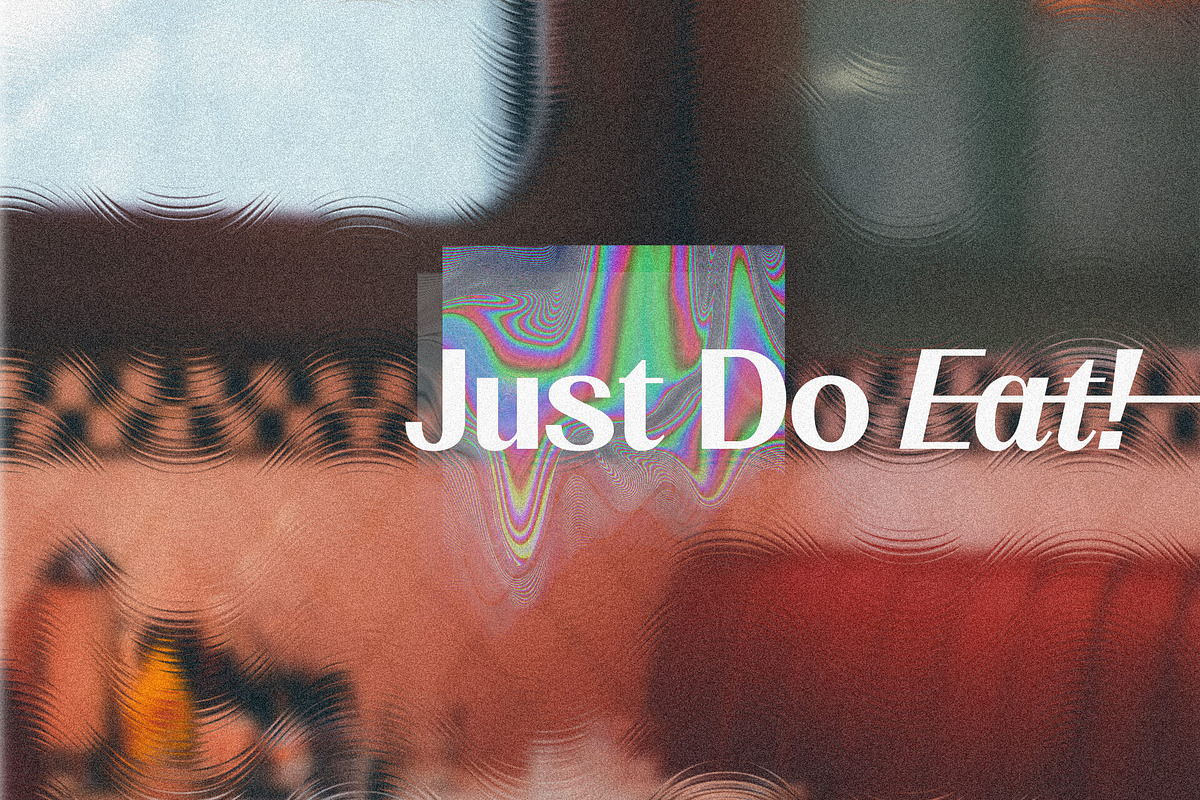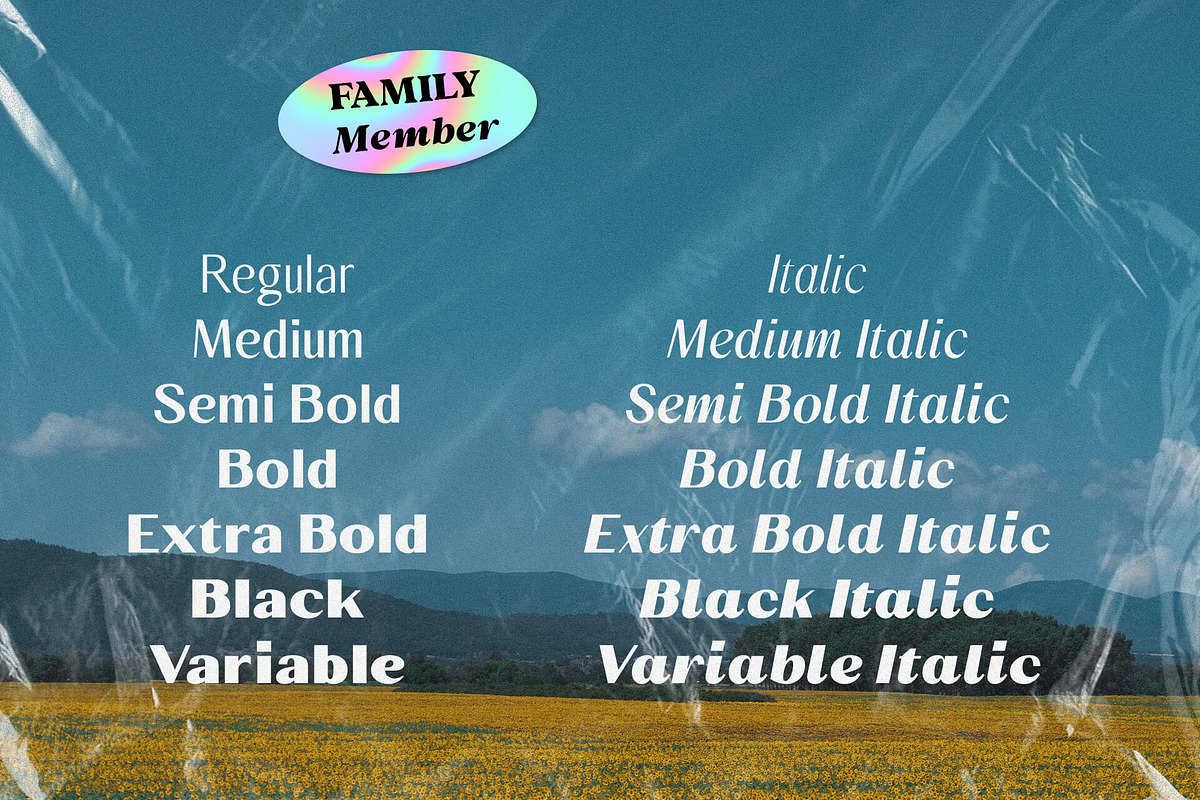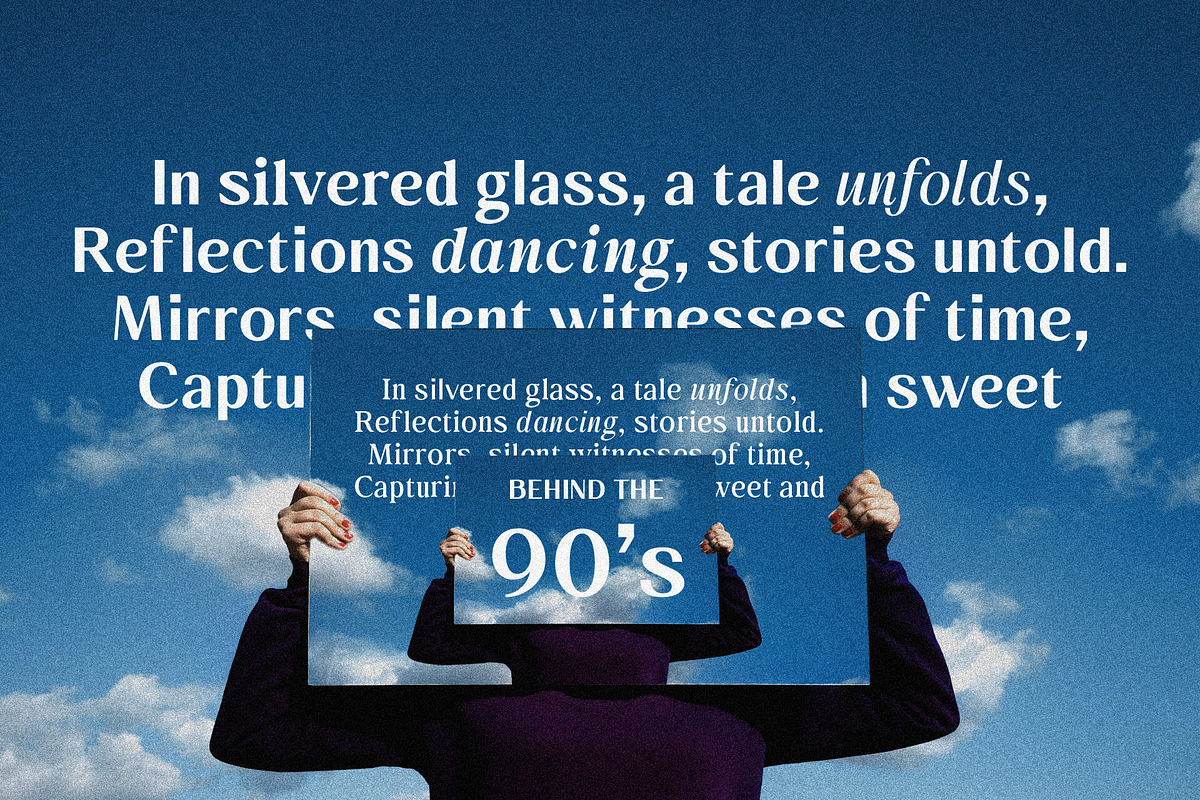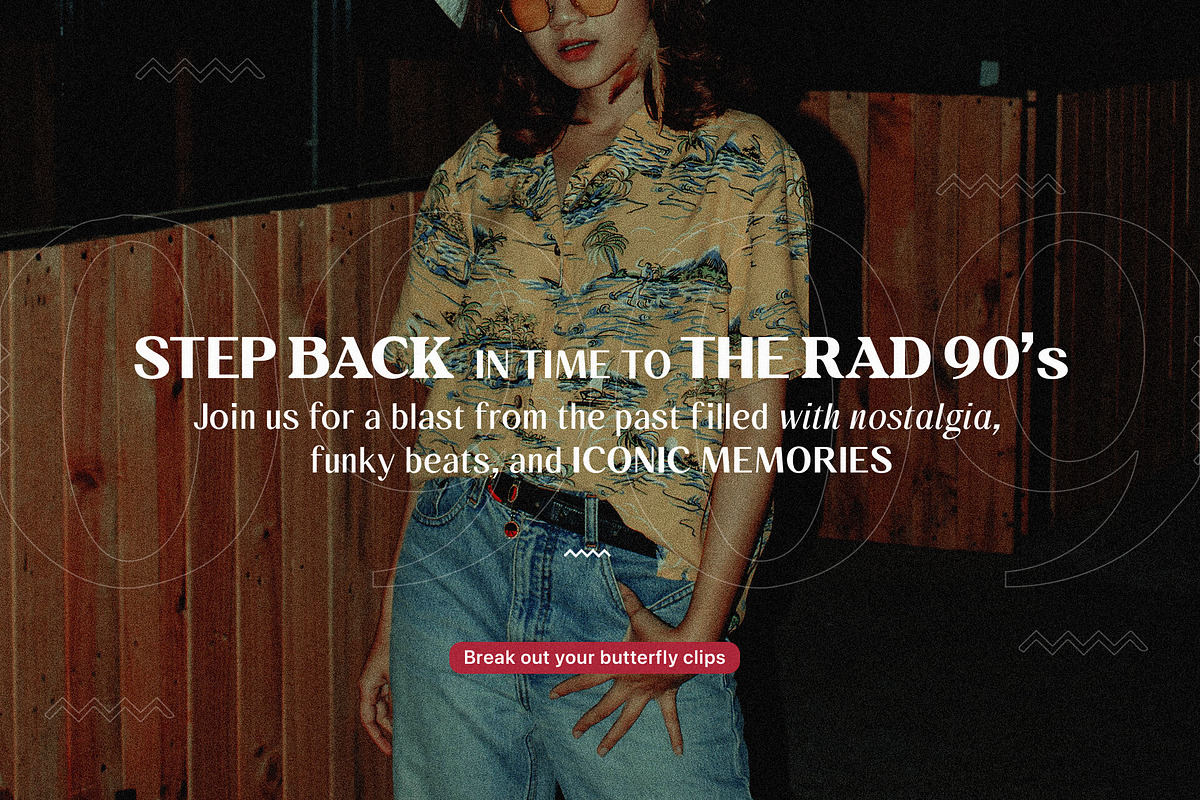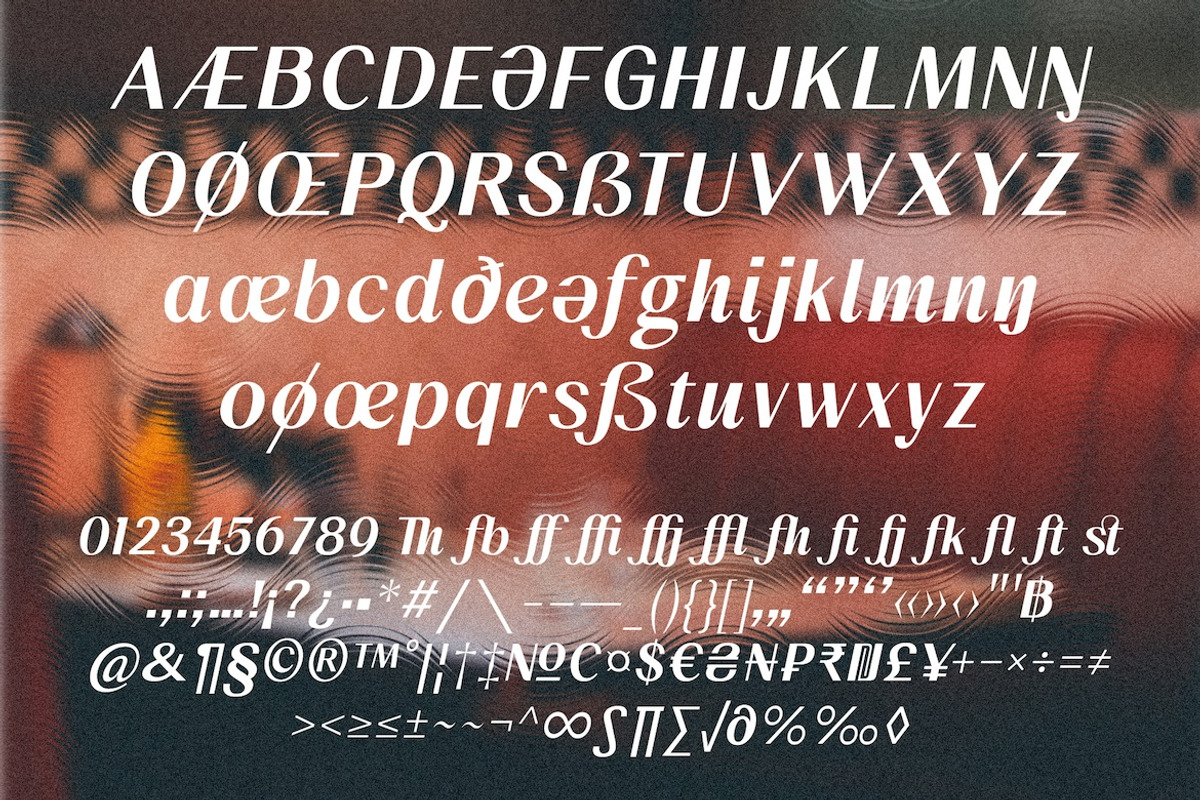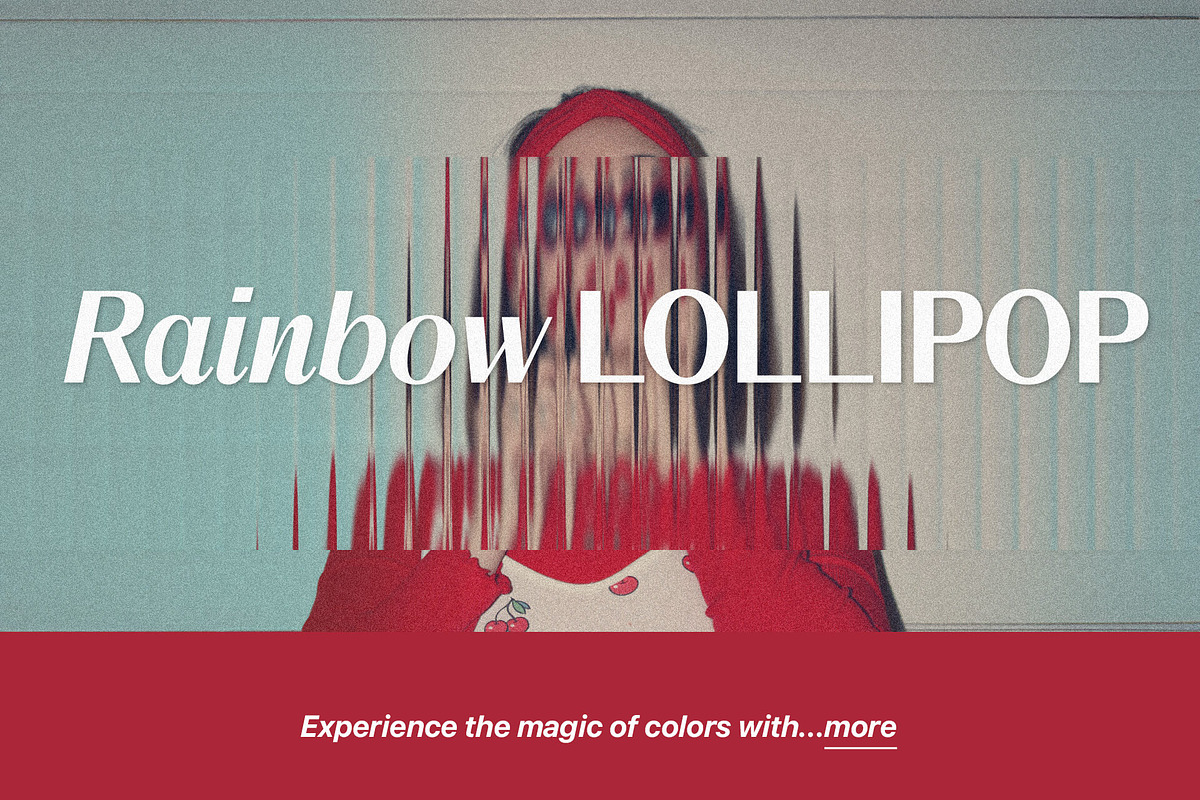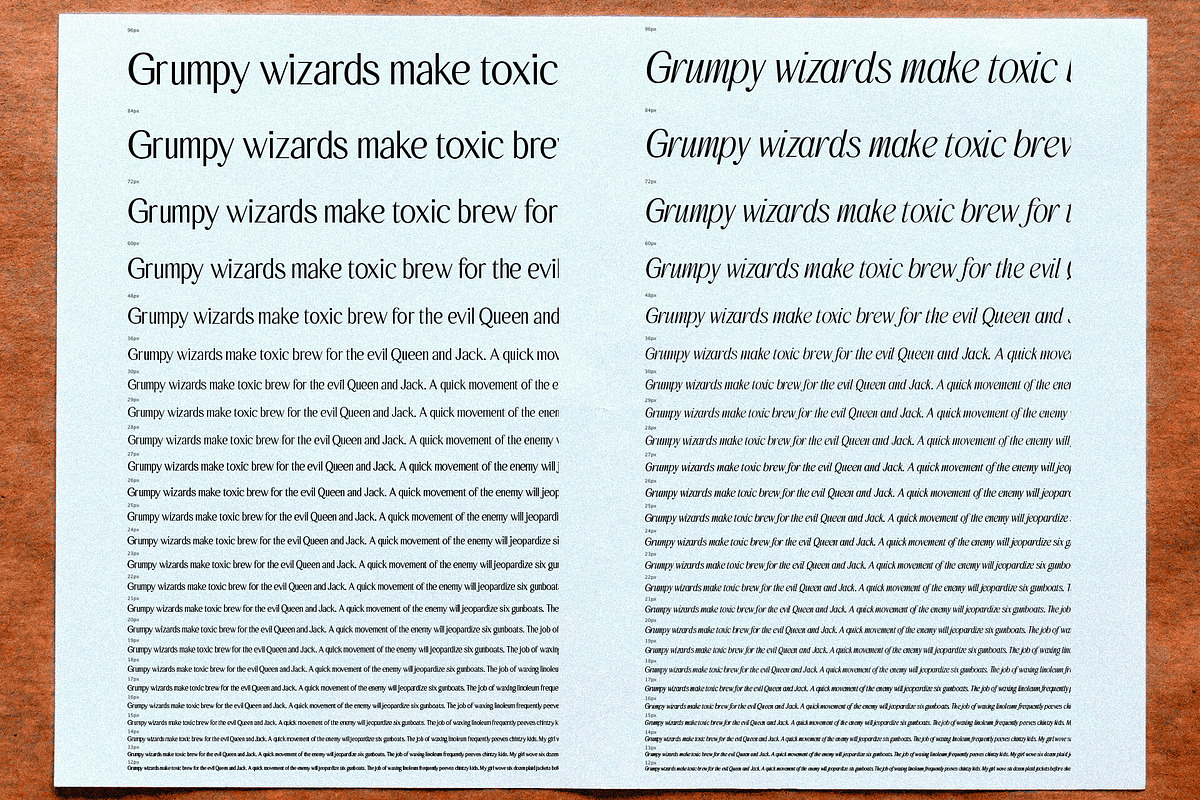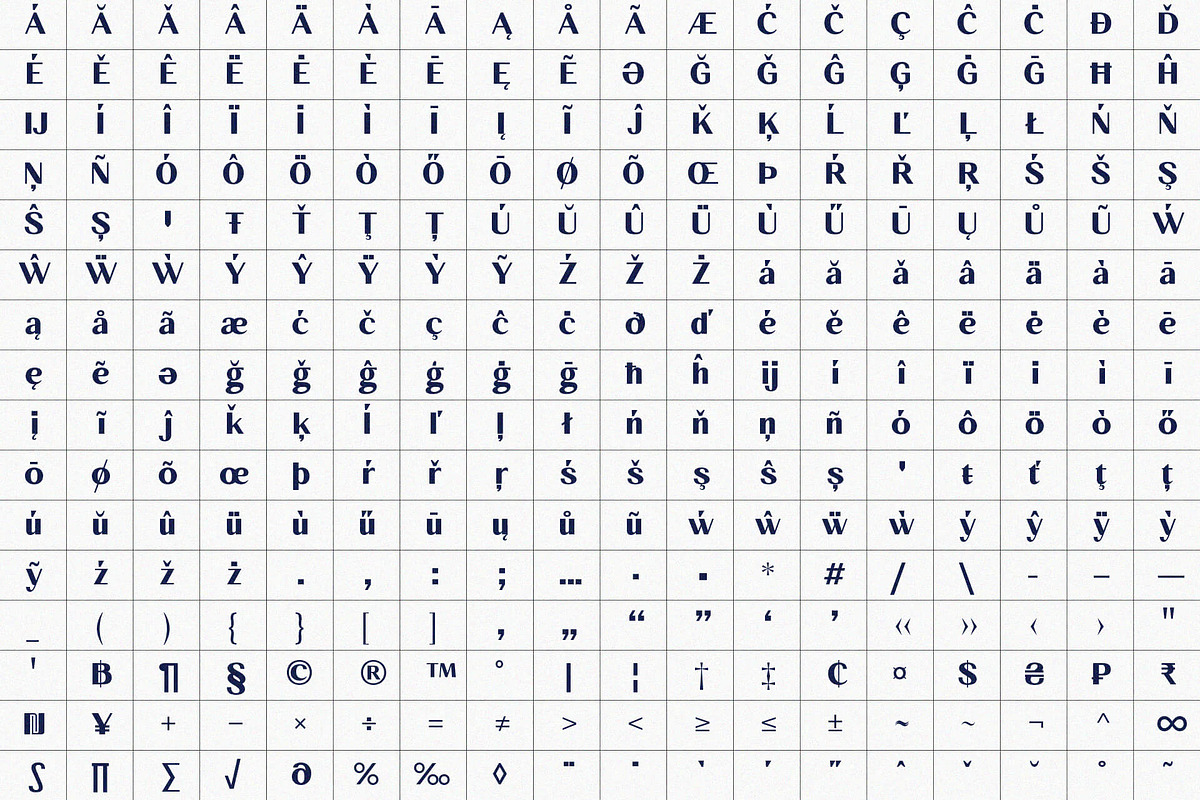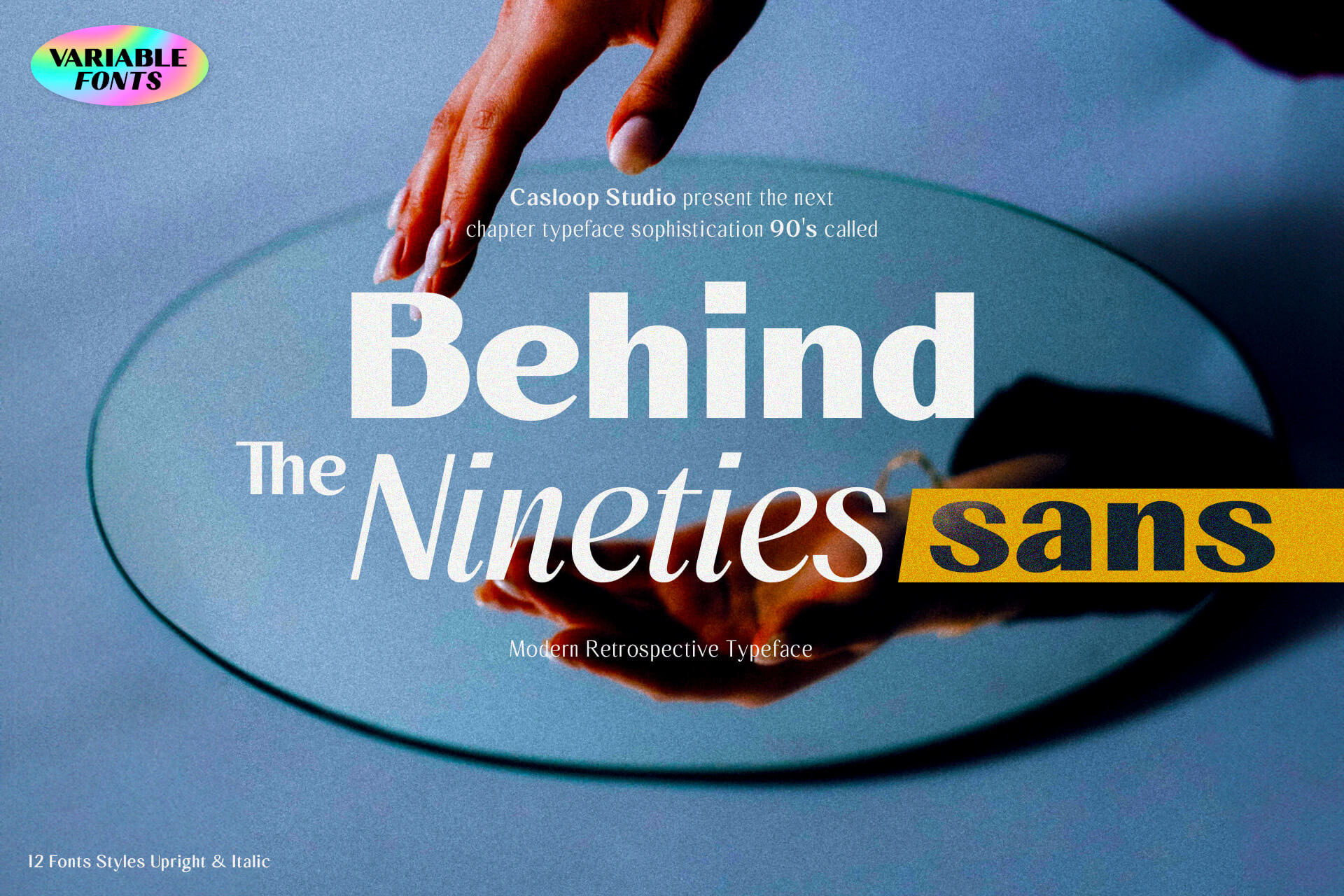
Behind The Nineties Sans 12 Fonts
Introducing Behind The Nineties Sans
the perfect counterpart to our beloved font, Behind The Nineties This new sans-serif addition effortlessly captures the classic vibes of the 80’s and 90’s while infusing a contemporary touch for a timeless yet modern aesthetic.
Sans Serif Sophistication: "Behind The Nineties Sans" exudes sleek and modern elegance, offering a clean alternative to its serif predecessor.
Regular and Italic Styles: Whether you prefer a straightforward look or a touch of italicized flair, this font provides versatility for all your design needs.
Classic with a Contemporary Twist: Embrace the spirit of the 80’s and 90’s with a font that seamlessly blends classic elements with contemporary sophistication.
Editorial Excellence: Elevate your editorial projects with the precision and clarity of "Behind The Nineties Sans," ensuring a polished and professional appearance.
Luxury Serif Companion: Pair it with "Behind The Nineties" serif font for a cohesive design that radiates opulence and luxury.
Dramatic Impact: Make a statement with the font's dramatic presence, capturing attention and adding a bold touch to your creative endeavors.
Behind The Nineties Sans is your go-to font for achieving a harmonious blend of nostalgia and modern flair. It's time to redefine classic design with this exquisite sans-serif typeface.
Download Behind The Nineties Sans now for a font experience encapsulating past beauty with a modern twist. Whether crafting a nostalgic magazine, trendy blog, or cosmetic branding project, it's your go-to for standout, classy designs. Embrace the 70's 9'0s 80's vibe and let Behind The Nineties Sans elevate your projects with timeless elegance!